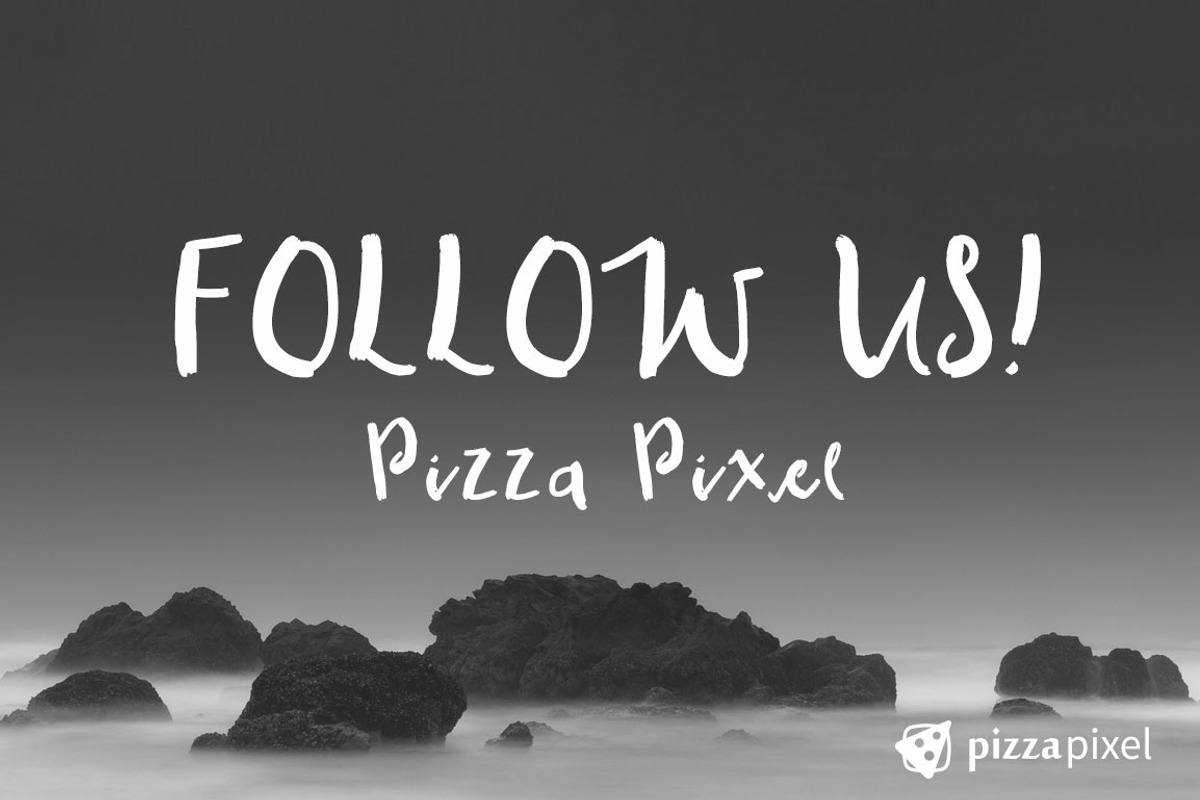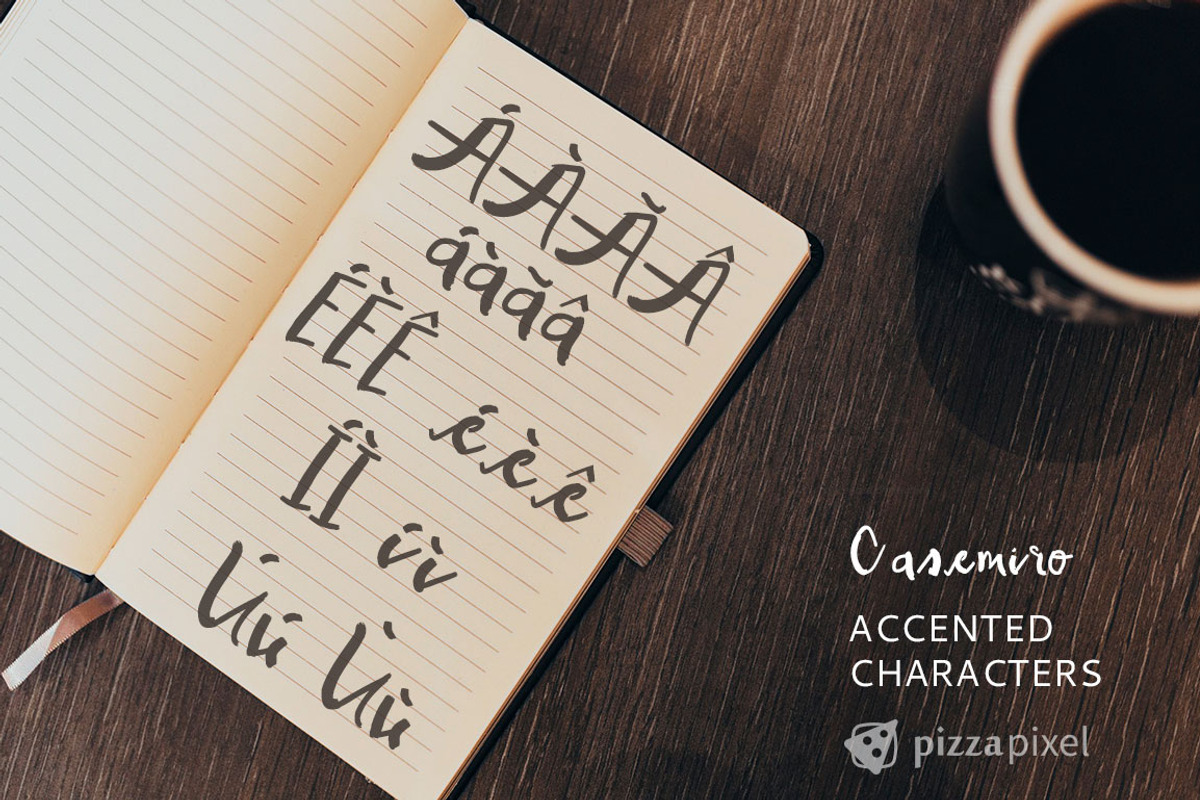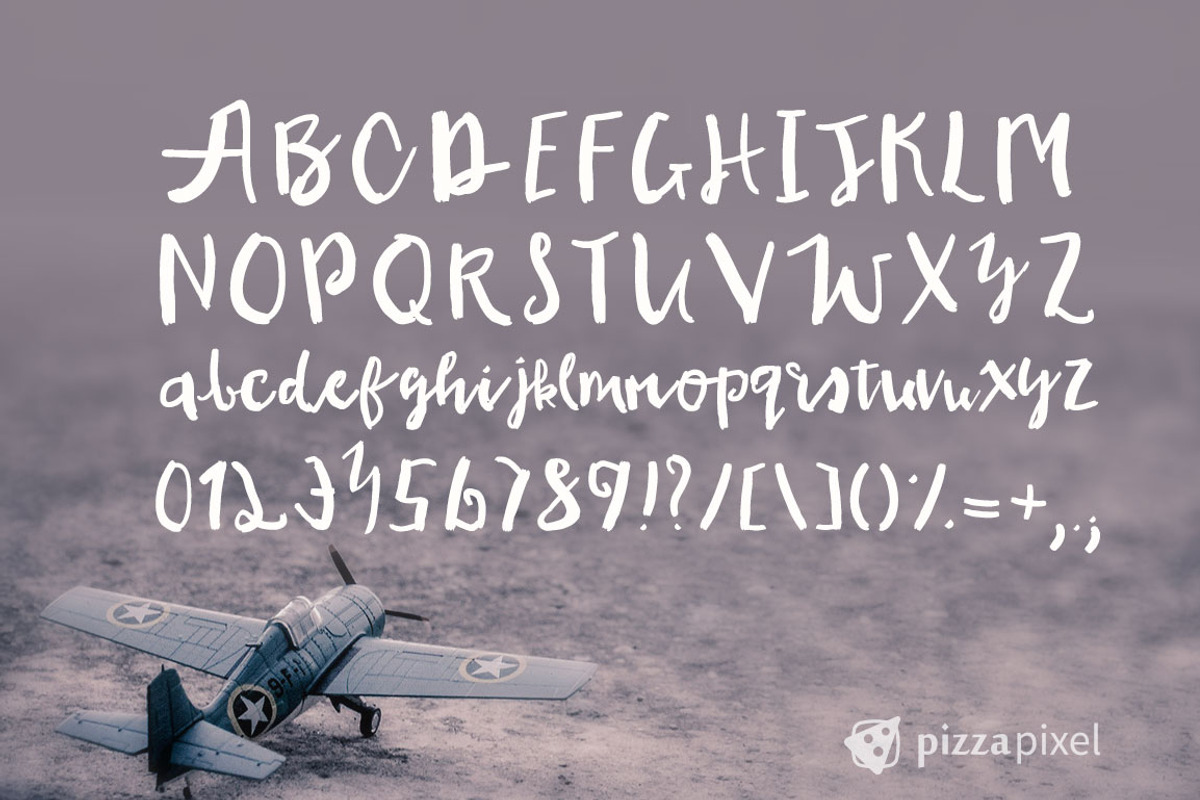
Casemiro Handmade Font (SALE)
Casemiro Handmade Font (SALE) by Pizza Pixel is a font selected for branding, posters, packaging, typography.
- 52 Normal characters (Uppercase & Lowercase) 23 Especial characters 22 Accented characters That's really all you need!
Casemiro Handmade Font (SALE) by Pizza Pixel fits naturally into Branding, posters, packaging, typography.